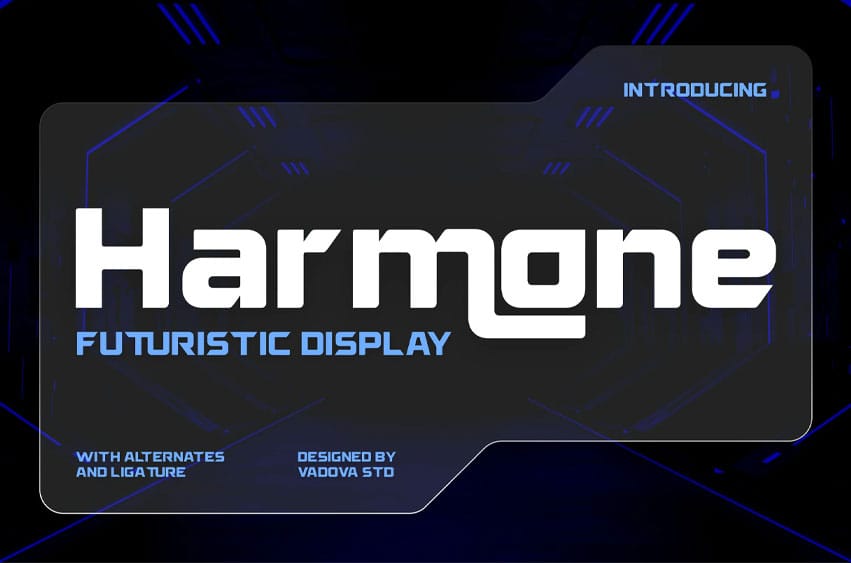
Harmone Font is a futuristic display font designed with strong geometry, modular shapes, and striking sci-fi aesthetics. Featuring stylized ligatures, bold alternates, and a cyberpunk edge, Harmone is ideal for UI/UX design, gaming interfaces, sci-fi posters, tech branding, and digital streaming overlays. The font’s sleek forms and angular cuts make it stand out in high-impact layouts, while its stylistic variety supports versatility across both display and tech-centric uses. Harmone is perfect for designers seeking a bold, modern typeface that evokes innovation, AI, and digital worlds.
Relevance and Use Cases is perfect for sci-fi movie titles, gaming user interfaces, esports branding, technology product packaging, streaming overlays, app and dashboard UI, coding themes, futuristic posters, space exploration themes, crypto branding, startup technology decks, cyber security graphics, artificial intelligence branding, glitch animations, YouTube intros, techwear logos, NFT promo graphics, software or terminal displays